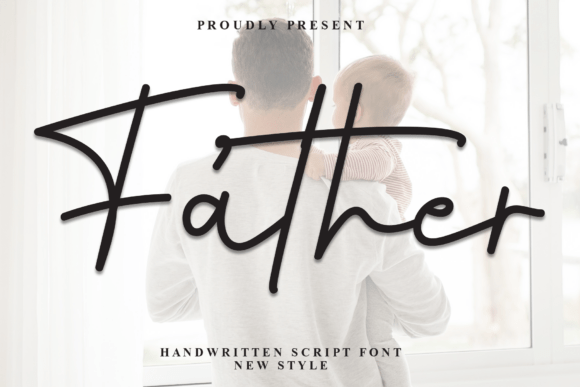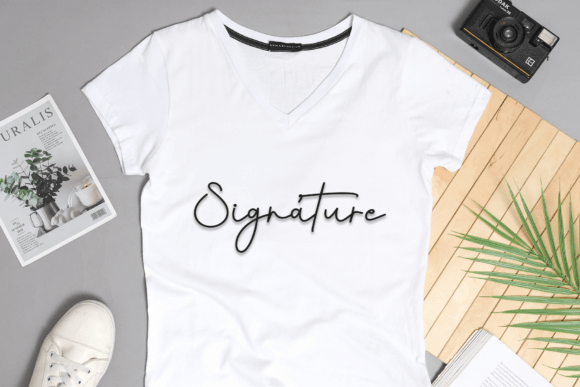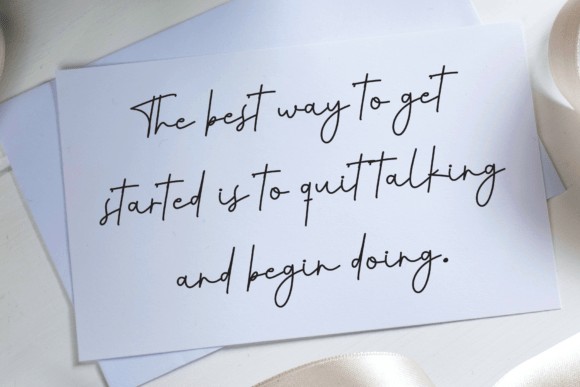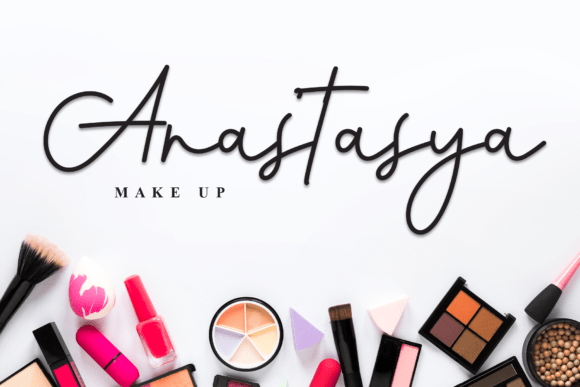
Father Font
About the Father Font
Get ready to be inspired by Father Font, a fresh and dynamic typeface for modern creators. Perfectly imperfect! This font brings a raw, expressive energy to your designs with its slightly untamed strokes and casual charm. It mimics natural handwriting that’s a little wild and wonderfully real—ideal for journaling projects, note-style graphics, creative branding, or anything that needs a touch of personality and spontaneity.
Father Font’s expressive nature makes it ideal for headlines, short-form copy, and branding projects requiring a handcrafted, approachable feel. It works exceptionally well in logos, social media graphics, and packaging for artisanal products. However, its irregular stroke weights make it unsuitable for body text or UI elements where readability is paramount. Avoid using it in long paragraphs or situations demanding high levels of legibility.
Pairing Father Font effectively requires a complementary typeface to balance its informality. Consider a clean sans-serif like Montserrat or Lato for a modern contrast, or a classic serif such as Garamond or Playfair Display for a touch of elegance. For a more playful approach, a rounded sans-serif like Bebas Neue could also work well.
The overall personality of Father Font is friendly and approachable, yet bold and slightly rebellious. It conveys a sense of authenticity and human connection, making it perfect for brands focused on craft, individuality, and creative expression.